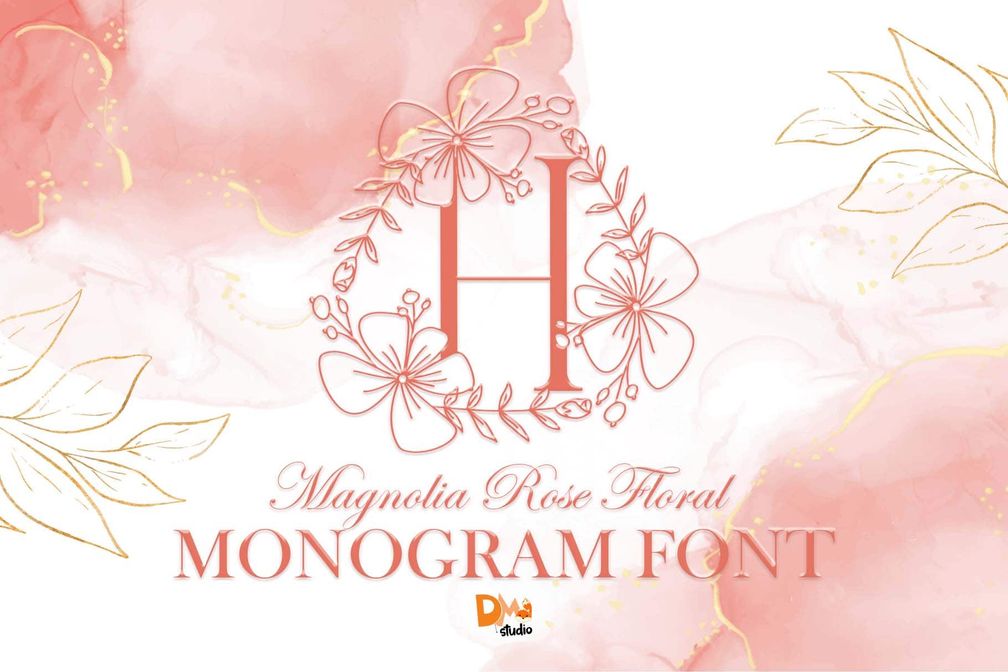
Magnolia Rose Floral Monogram
Magnolia Rose Floral Monogram – Elegant Handdrawn Floral Monogram Font
Magnolia Rose Floral Monogram is a delicately crafted typeface featuring elegant, hand-drawn floral illustrations inspired by magnolia and rose blooms. Designed to add a graceful and romantic touch, this monogram font is ideal for wedding invitations, feminine branding, personalized gifts, and upscale stationery. Each letter is adorned with refined botanical details, making your design effortlessly charming and timeless.
• Handdrawn Floral Details – Beautifully illustrated magnolia and rose motifs in every letter.
• Romantic and Feminine Aesthetic – A graceful blend of nature and elegance.